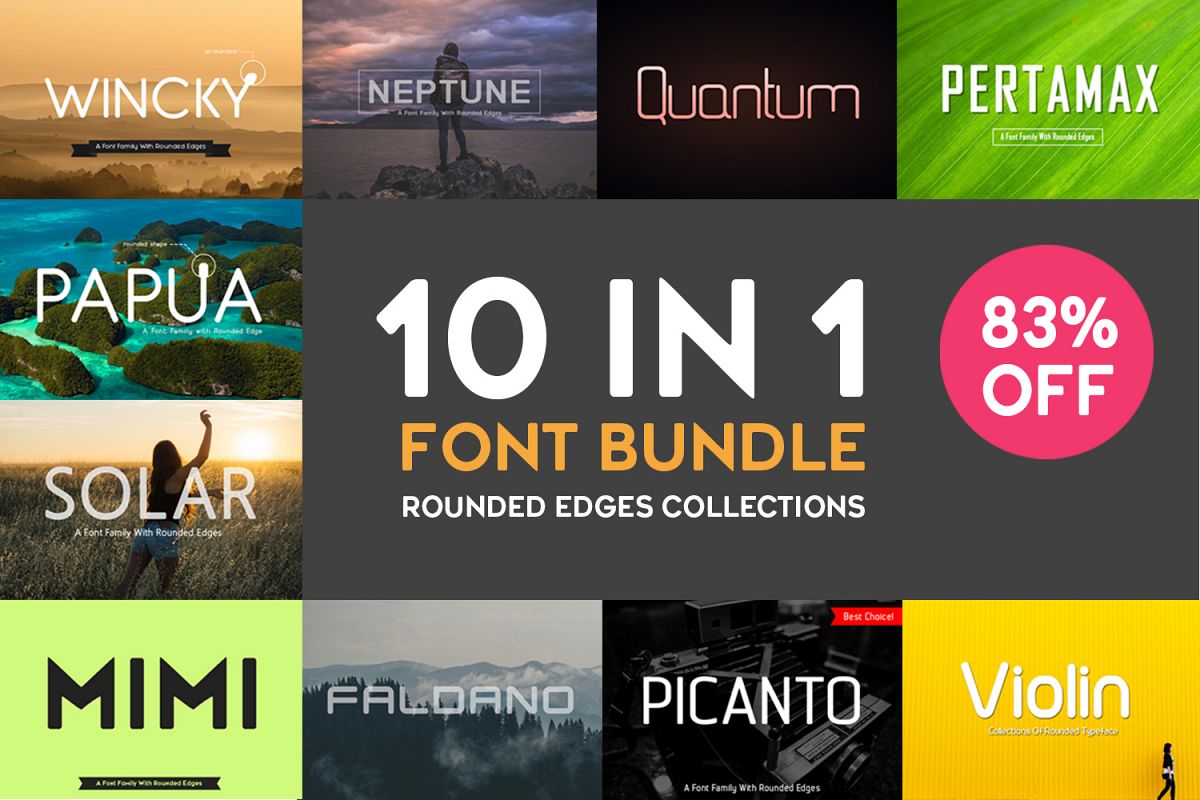
Why we use rounded edges for font, because rounded shape is sexy & beautiful. When you get bored of fonts with sharp corners, try this collections, a font family with rounded edges. Let’s move on to the rounded shape font. Feel free to comment or input in order to become better font!